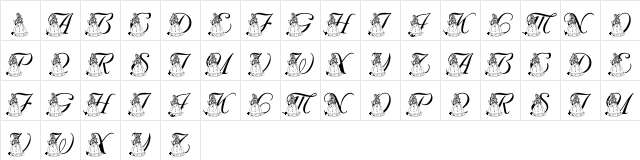
LMS For Princess Julie Regular
Design Context for LMS For Princess Julie Typeface
LMS For Princess Julie is a composed and adaptable typeface that performs quietly and consistently across a wide range of design contexts.